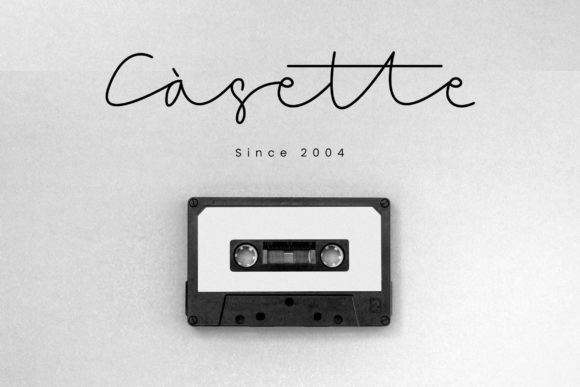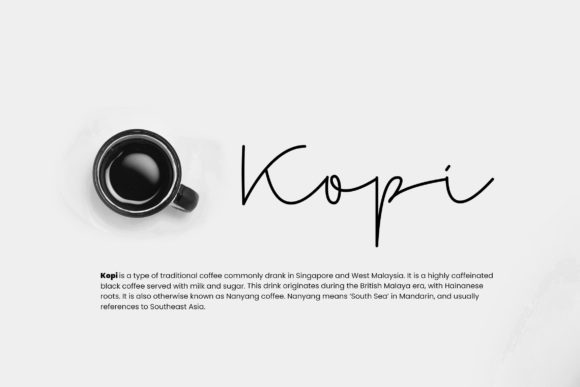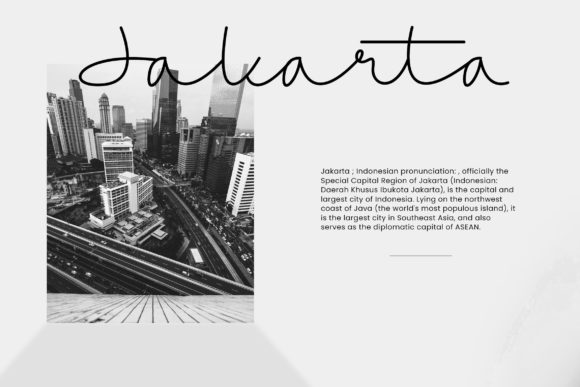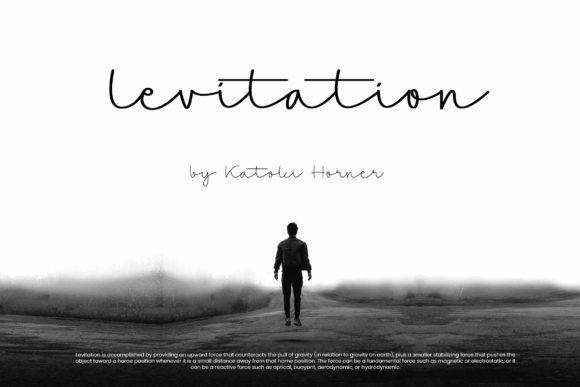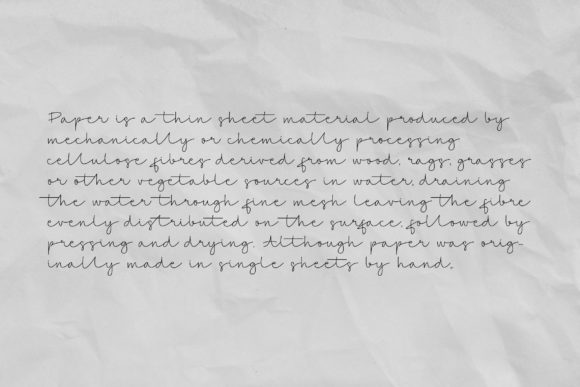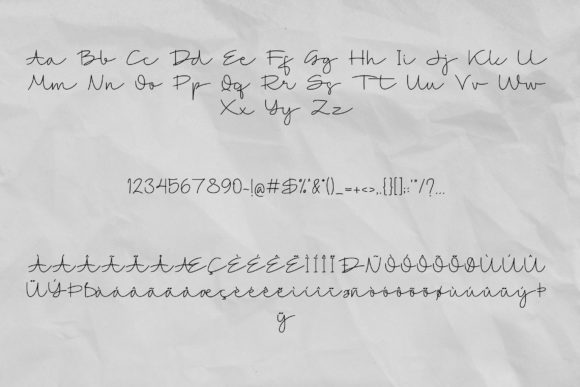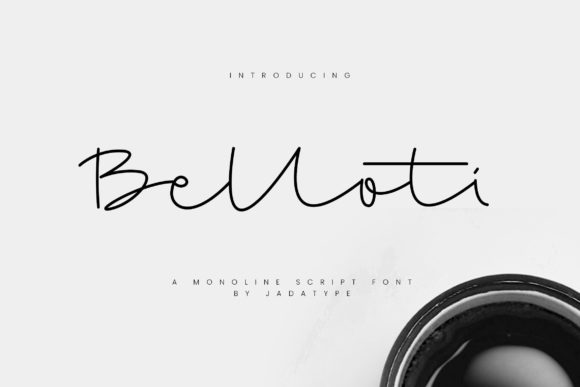
Belloti Font: Elevate Your Designs with Elegance and Sophistication
In the world of typography, few fonts manage to capture the essence of elegance and sophistication as beautifully as the Belloti Font. This stunning script font is a masterpiece of thin lettering and graceful strokes, designed to add a touch of luxury to any design project. Whether you’re a seasoned designer or a crafty DIY enthusiast, Belloti is sure to captivate your heart with its ravishing style.
Unleash Your Creativity with Belloti’s Versatility
Belloti’s versatility is one of its most compelling features. This gorgeous font can be used to create a wide range of design materials, from wedding invitations and stationary art to eye-catching social media posts and more. Its elegant and refined aesthetic makes it perfect for projects that require a touch of sophistication and glamour. Imagine creating beautiful wedding stationery, complete with bespoke invitations, save-the-date cards, and thank-you notes that exude refinement and poise.
The Benefits of PUA Encoding
One of the standout features of Belloti Font is its PUA (Private Use Area) encoding. This means that accessing all glyphs and swashes is incredibly easy, allowing you to unlock the full creative potential of the font. With PUA encoding, you can effortlessly access a wide range of alternative characters, ligatures, and swashes, giving you the flexibility to experiment with different styles and effects.
Why Designers and Crafters Love Belloti
Designers and crafters alike are drawn to Belloti Font for its unique combination of style, versatility, and ease of use. Here are just a few reasons why:
- Elegant and Refined Aesthetic: Belloti’s thin lettering and graceful strokes create a sophisticated and luxurious look that’s perfect for high-end designs.
- PUA Encoding for Easy Access: With PUA encoding, you can easily access all glyphs and swashes, making it simple to experiment with different styles and effects.
- Highly Versatile: From wedding invitations to social media posts, Belloti can be used for a wide range of design projects.
- User-Friendly: Whether you’re a seasoned designer or a DIY novice, Belloti is easy to use and integrate into your design workflow.
Tips for Getting the Most Out of Belloti Font
To truly get the most out of Belloti Font, here are a few tips to keep in mind:
- Experiment with Different Sizes and Colors: Belloti looks stunning in a range of sizes and colors, so don’t be afraid to experiment and find the perfect combination for your design.
- Pair with Complementary Fonts: Belloti pairs beautifully with a range of complementary fonts, so try pairing it with a bold sans-serif or a elegant serif font.
- Use Swashes and Glyphs to Add Personality: With PUA encoding, you can easily access a range of swashes and glyphs to add personality and flair to your design.
In conclusion, Belloti Font is a stunning script font that offers a unique combination of elegance, sophistication, and versatility. With its PUA encoding, user-friendly design, and highly refined aesthetic, it’s the perfect choice for designers and crafters looking to elevate their designs. Whether you’re creating wedding invitations, stationary art, or social media posts, Belloti is sure to captivate your audience with its ravishing style.